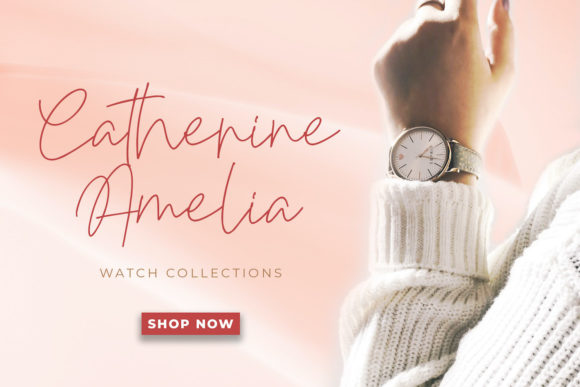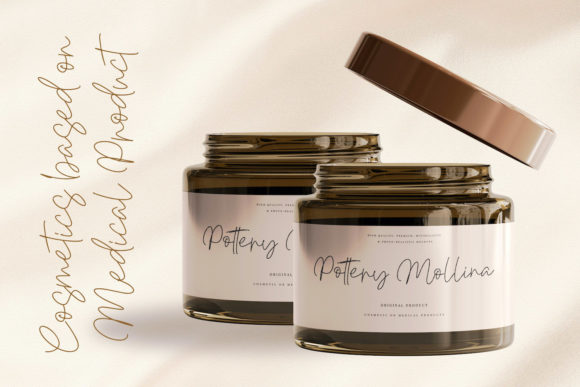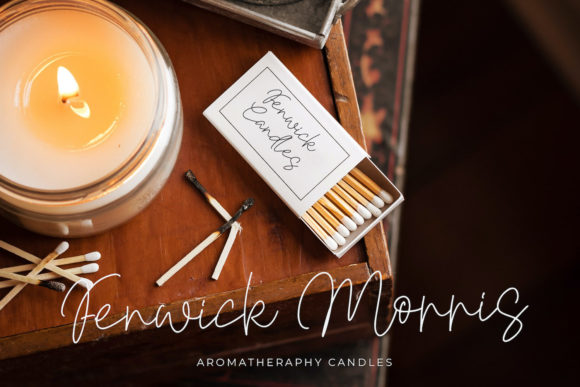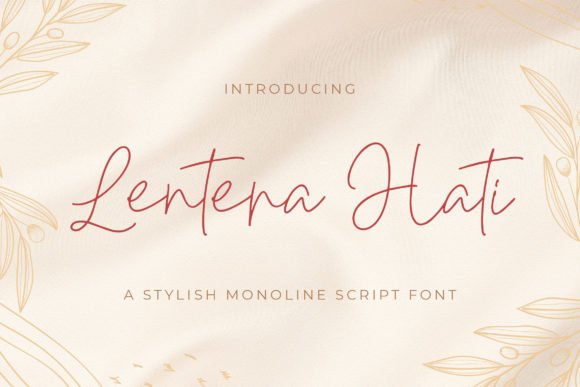
Introduction to Lentera Hati Font
Lentera Hati is a lovely script font featuring light, delicate characters that seem to dance along the baseline.
Add this font to your most creative ideas, and notice how it makes them stand out .
Key Features of Lentera Hati Font
Why Choose Lentera Hati Font?
Lentera Hati Font offers exceptional quality and versatility, making it a valuable addition to your design toolkit. Whether you’re creating for personal projects or commercial use, Lentera Hati Font delivers professional results.